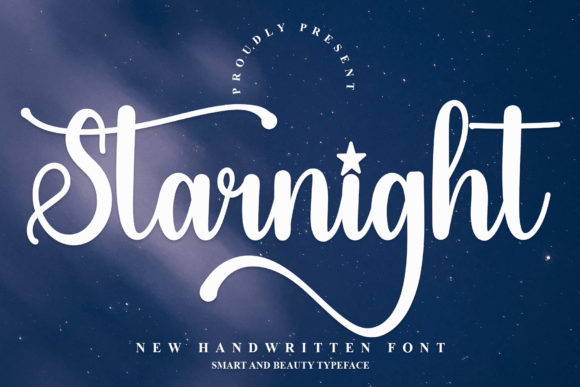
Introducing Starnight Font, the perfect choice for adding a touch of elegance and sophistication to your projects. Crafted by Inermedia STUDIO, this stylish handwritten font combines a contemporary atmosphere with impeccable form, making it an ideal choice for a wide range of design needs.
With its timeless classic calligraphy inspiration, Starnight Font strikes the perfect balance between traditional beauty and modern charm. Its script font family adds a touch of personalization and uniqueness, ensuring that your projects stand out from the crowd.
One of the key features of Starnight Font is its versatility. Whether you're designing business cards, logos, invitations, or any other creative work, this font has got you covered. Its diverse range of font styles for business cards gives you the freedom to create designs that truly reflect your brand or personal style.
The impeccable form of Starnight Font lends itself well to both digital and print mediums. Its smooth and flawless strokes make it a pleasure to work with, ensuring that your designs come out looking professional and polished. From high-resolution prints to digital graphics, this font maintains its clarity and elegance.
What sets Starnight Font apart is not just its aesthetic appeal, but also the emotions it evokes. Its contemporary atmosphere exudes a sense of confidence and sophistication, making it the perfect choice for businesses and individuals looking to make a statement. With Starnight Font, you can effortlessly capture the attention of your audience and leave a lasting impression.